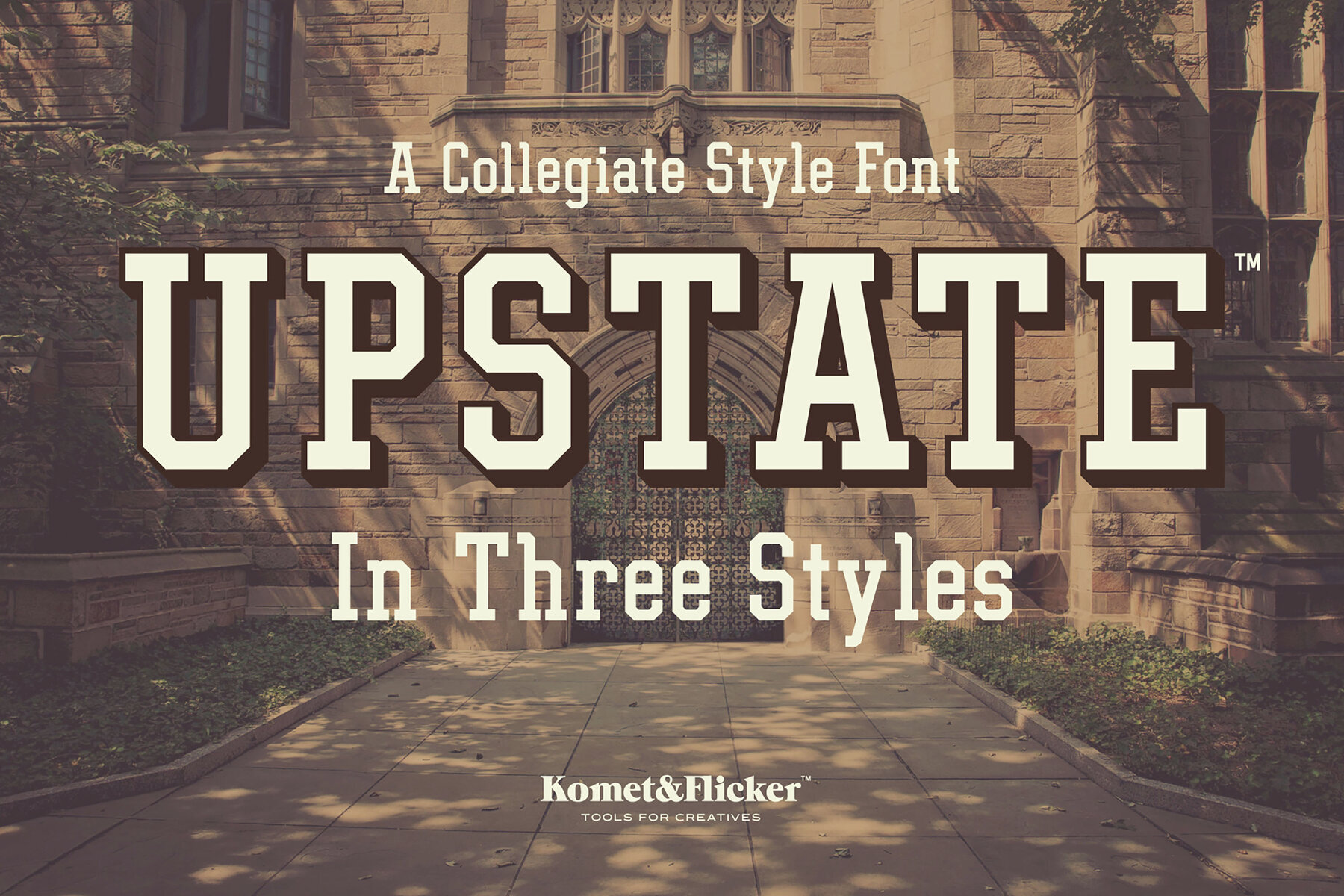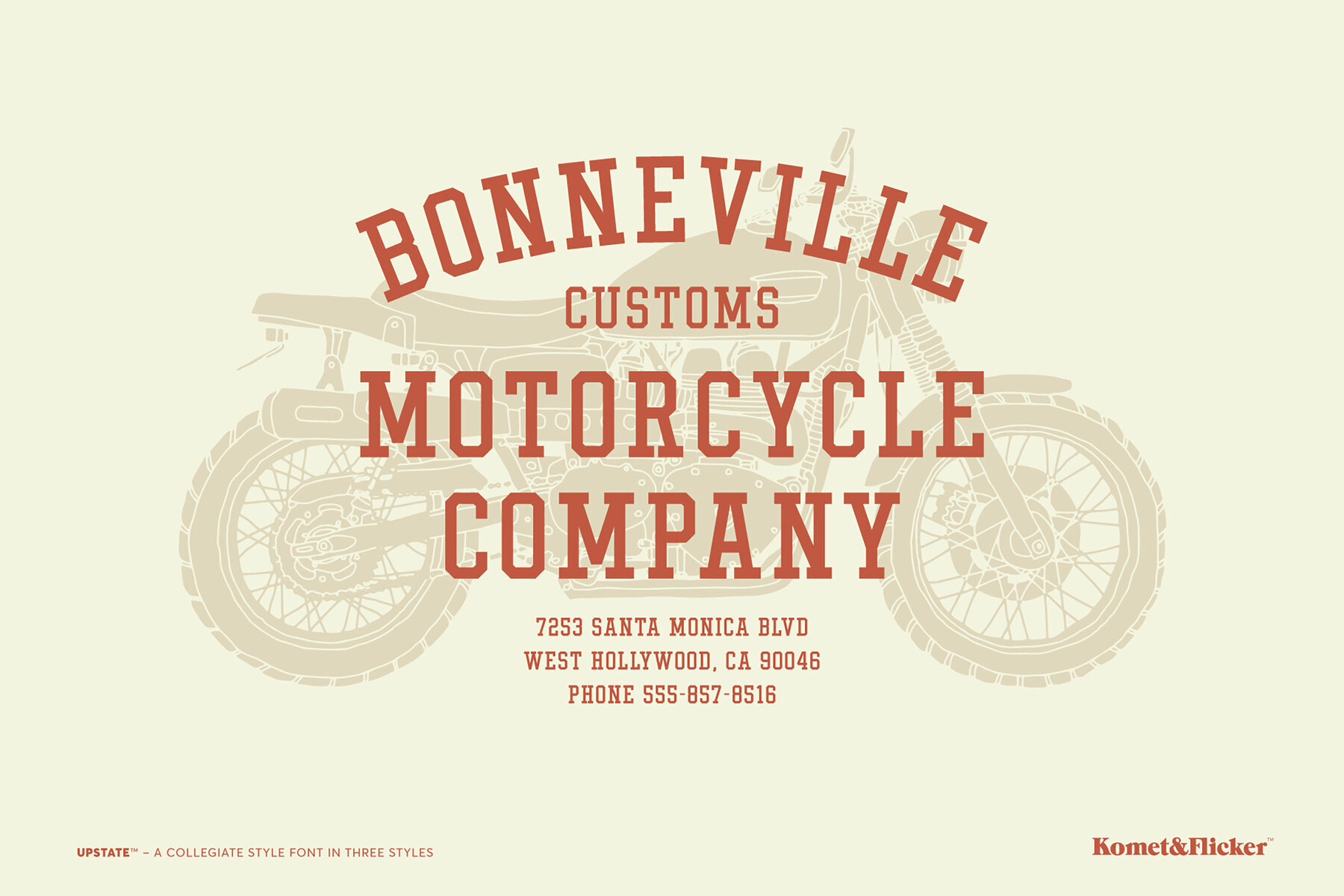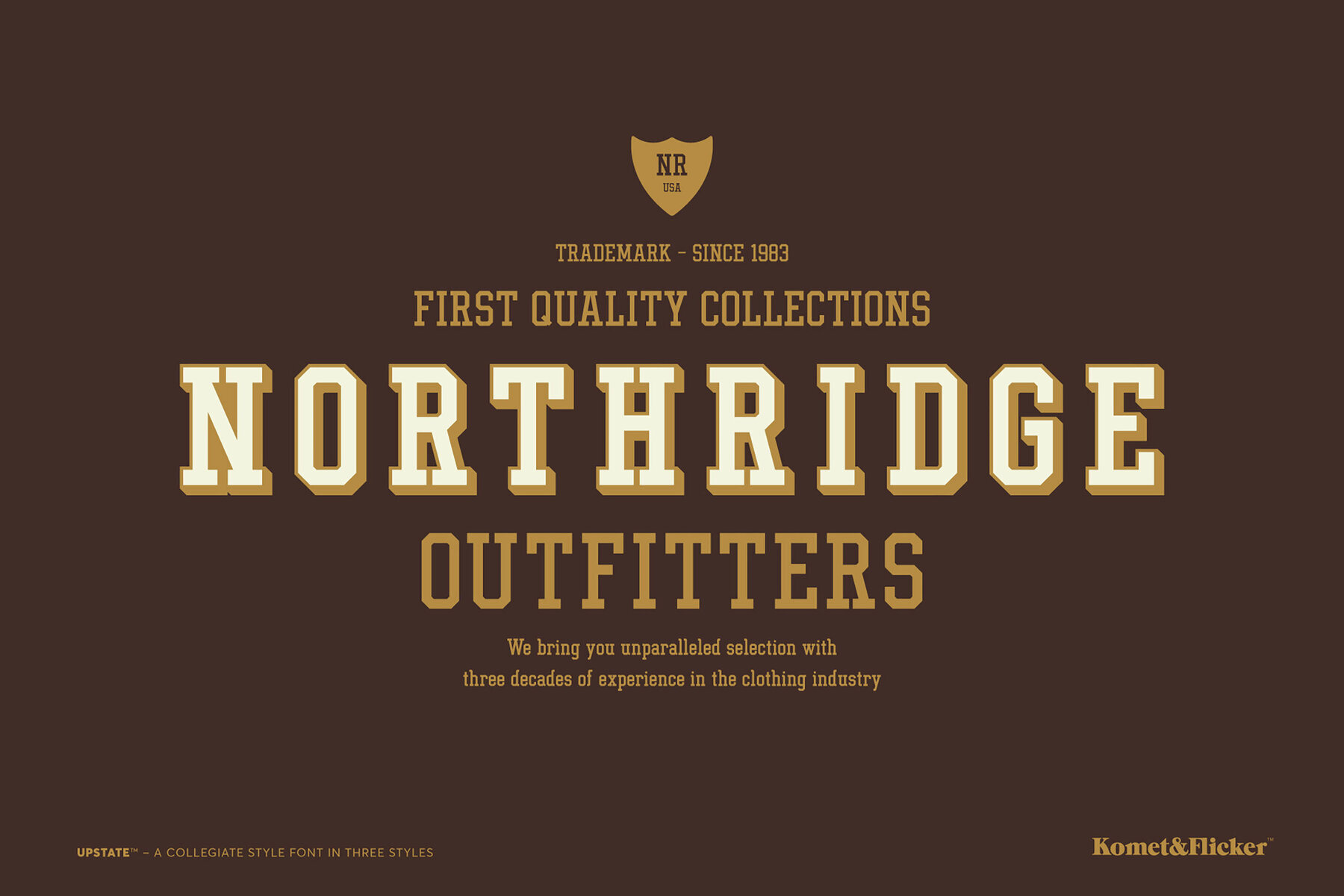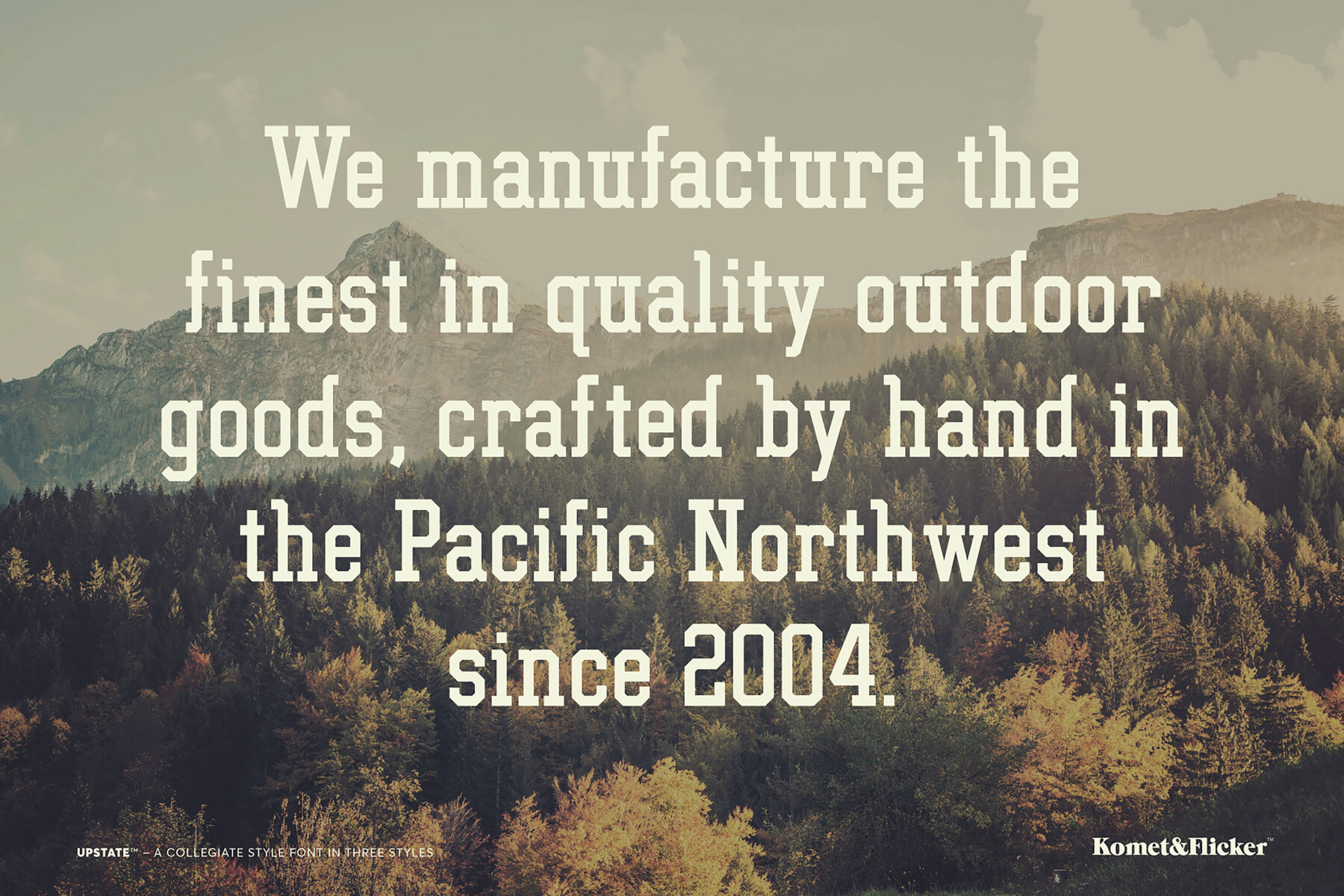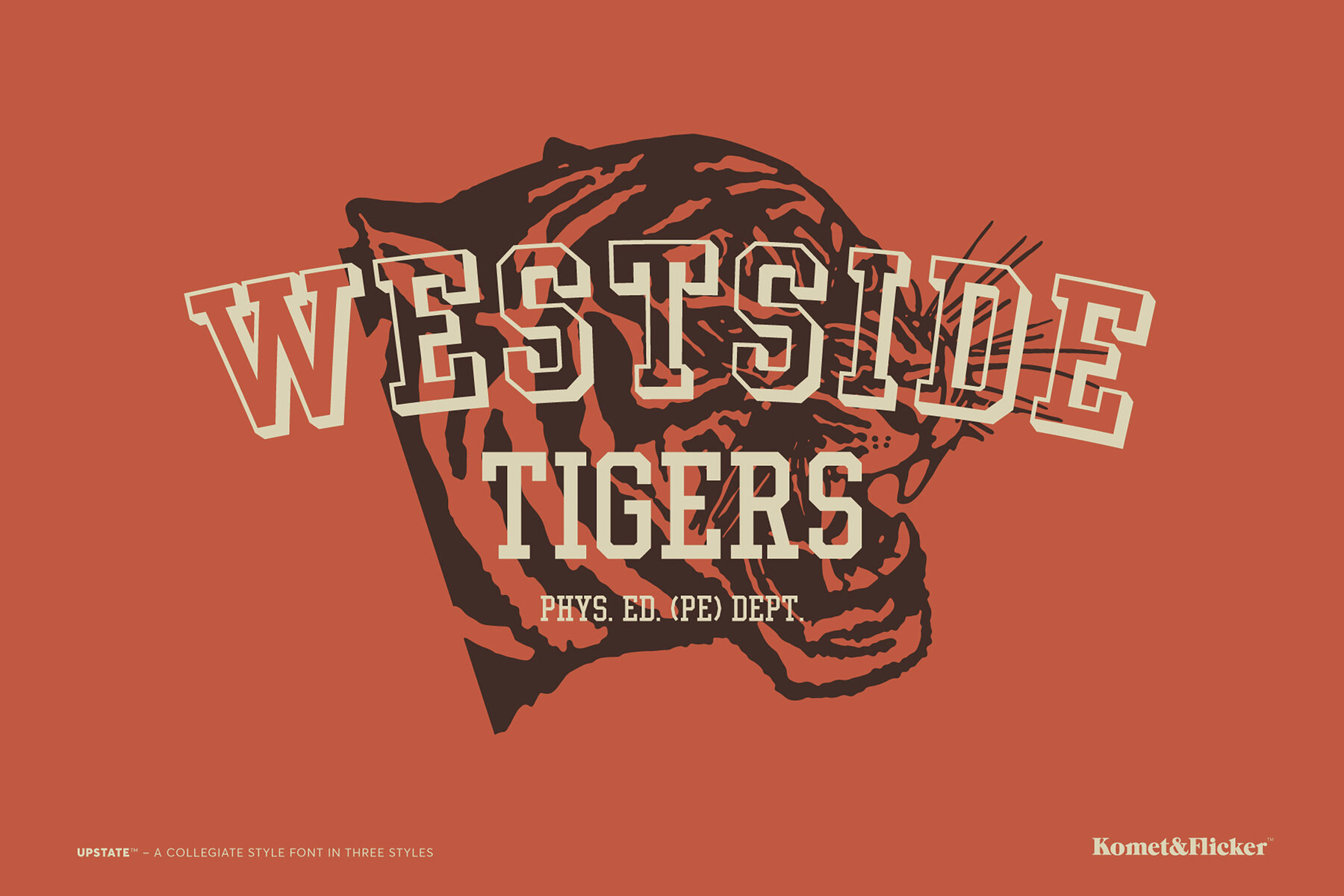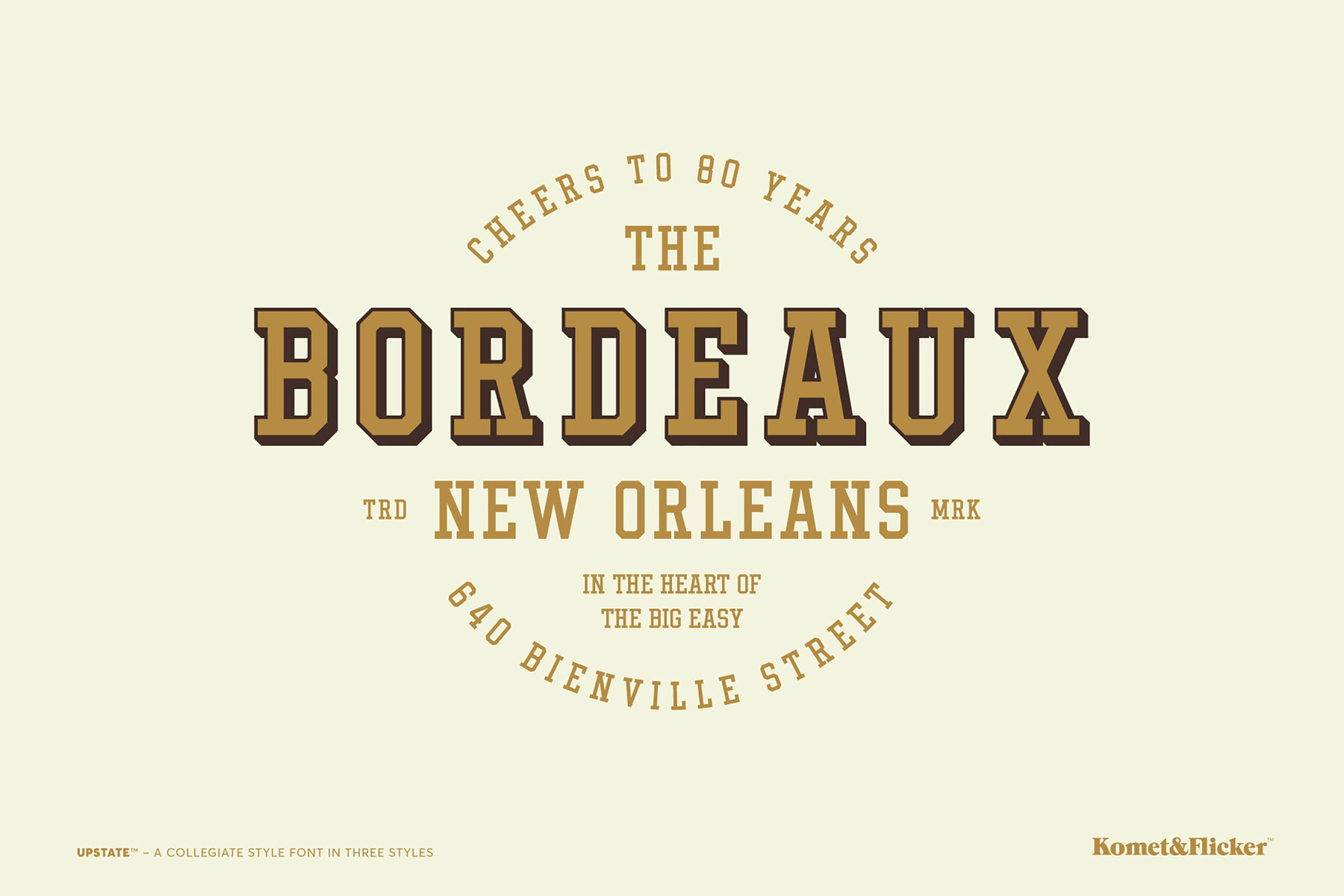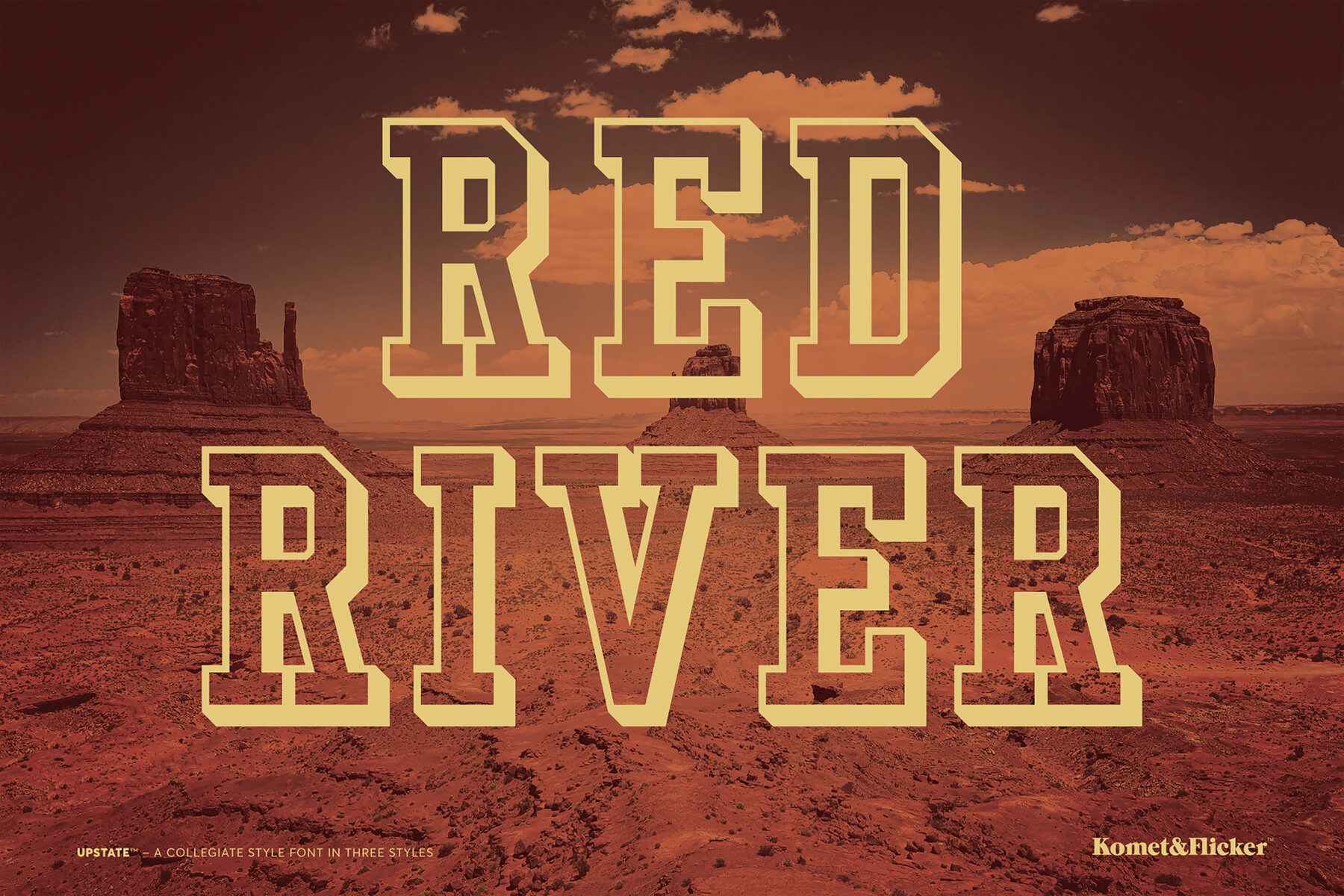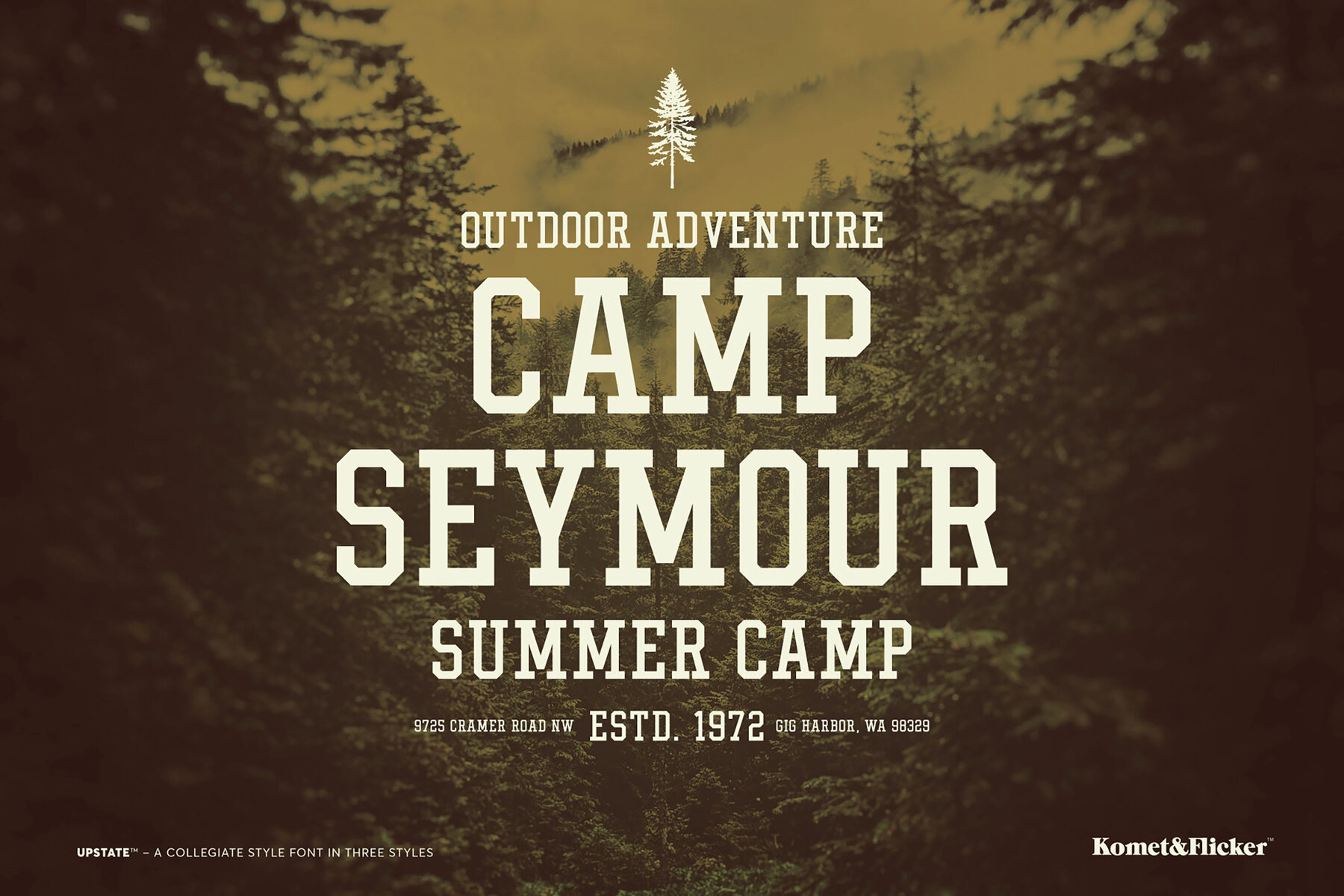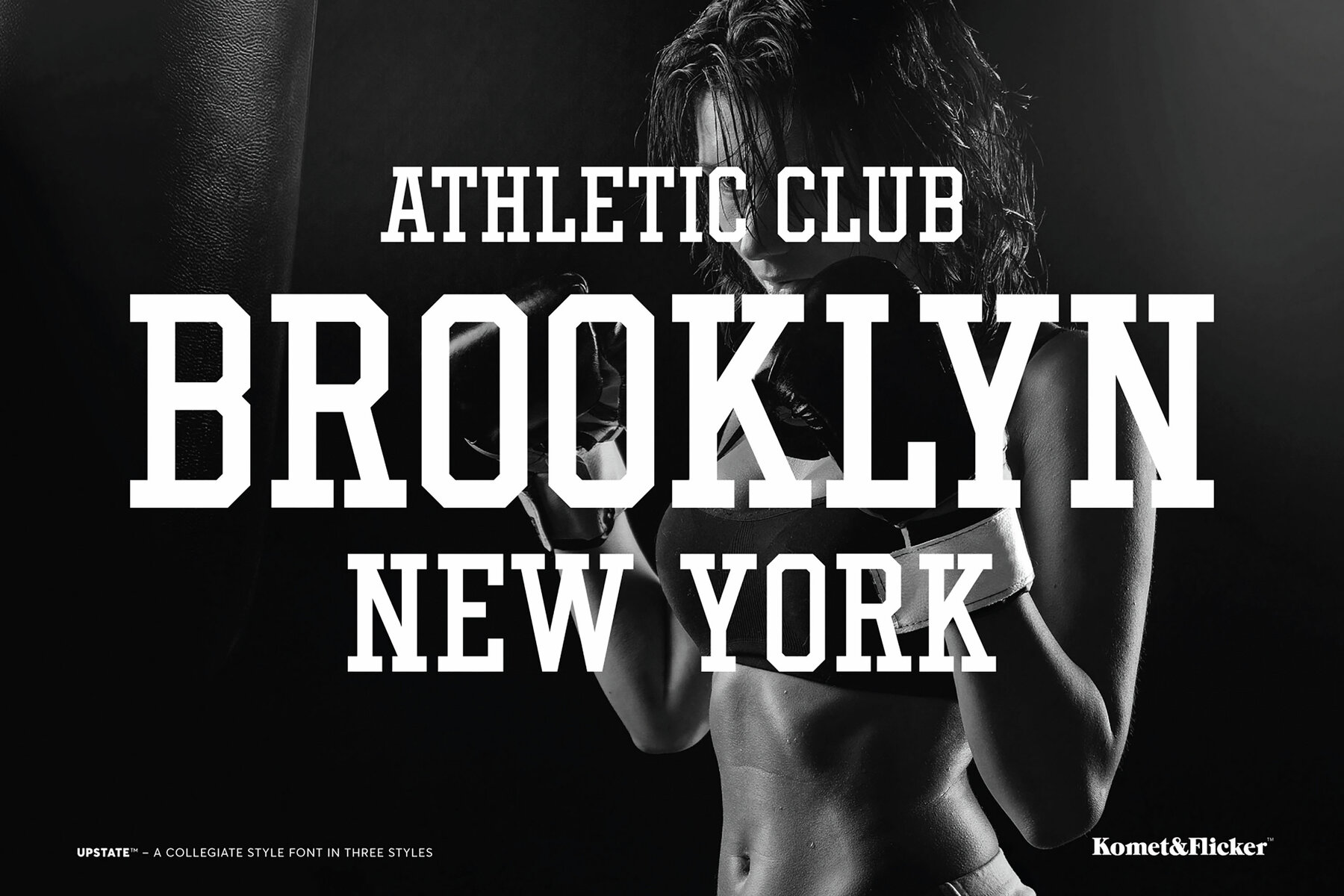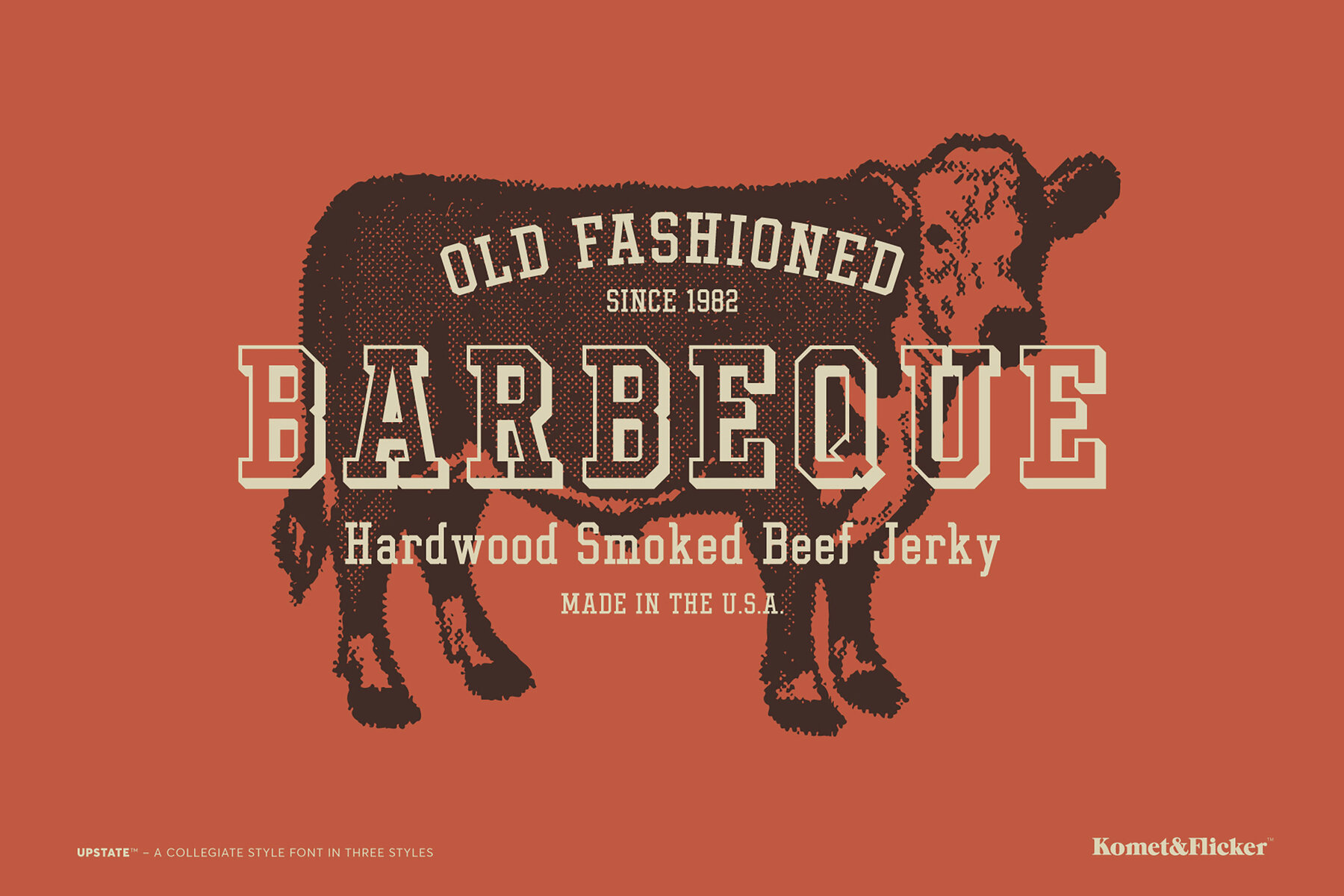
UPSTATE Font
UPSTATE Regular
UPSTATE Shadow Base
UPSTATE Shadow Fill
UPSTATE Shadow Outline
Introducing UPSTATE, a vintage style slab serif font that embodies the timeless elegance and spirited energy of collegiate style. Inspired by prestigious ivy league prep schools and classic athletic lettering, UPSTATE brings a touch of tradition and vigor to your designs. Its robust, angular lines and bold, confident strokes make it perfect for headlines, logos, posters, and apparel. UPSTATE comes in three unique styles: Please note: UPSTATE Shadow Fill and UPSTATE Shadow Base are two separate fonts but together create a single style. In Illustrator, the extra custom glyphs can easily be accessed in the "Type → Glyphs" panel. In Photoshop they can be accessed through "Type → Panels → Glyphs Panel".